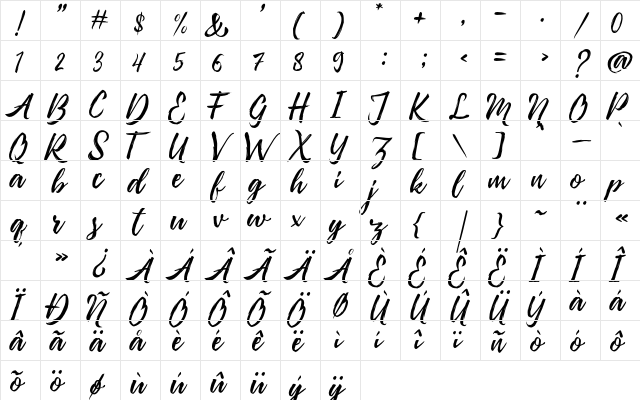
Pennello Free Demo Script Regular
Design Context for Pennello Free Demo Script Typeface
Pennello Free Demo Script flows with the natural rhythm of handwritten lettering, making it ideal for designs that call for warmth and personal expression.
Font Pairing: Combine Pennello Free Demo Script with a simple geometric sans for maximum contrast — the tension between flowing curves and clean structure is a classic typographic pairing.
Pro Tip: Use Pennello Free Demo Script for short runs of text — names, titles, or taglines. Extended body copy in script faces tires the eye quickly.